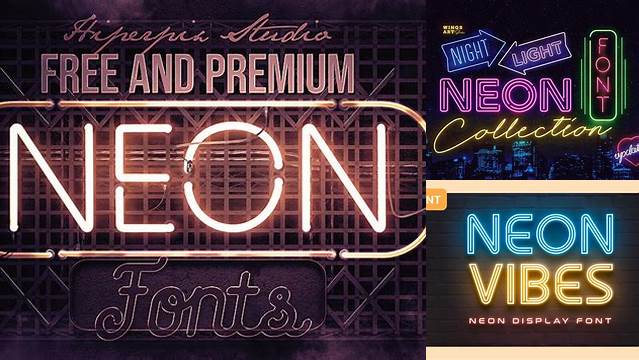
Neon Fonts: Free For Commercial Use
Hey guys! Are you looking to add some electric vibes to your designs? Neon fonts are the way to go! They're super trendy and can make your projects pop. But finding neon fonts free for commercial use can sometimes feel like searching for a needle in a haystack. Don't worry, though! This article is your ultimate guide. We'll dive deep into the world of neon fonts, where to find them, and how to use them for your commercial projects without breaking the bank. Let's get this neon party started!
Neon Fonts: An Introduction
Before we jump into the specifics of finding neon fonts free for commercial use, let's take a moment to appreciate what makes these fonts so special. Neon fonts mimic the vibrant glow of neon signs, bringing a retro yet futuristic feel to any design. Think about those classic diner signs or the flashy lights of Las Vegas – that's the kind of energy we're talking about! Using these fonts can instantly grab attention and add a unique flair to your work. They're perfect for posters, logos, website headers, and so much more. The right neon font can be the difference between a design that blends in and one that truly stands out. We will look at a wide variety of neon font styles and how they can be used to enhance your design projects. Whether you are working on a personal project or a commercial endeavor, understanding the nuances of neon fonts will help you make informed decisions and achieve the desired aesthetic.
Where to Find Free Neon Fonts
Top Websites for Free Commercial Neon Fonts
Google Fonts: A Neon Goldmine
DaFont: A Treasure Trove of Free Fonts